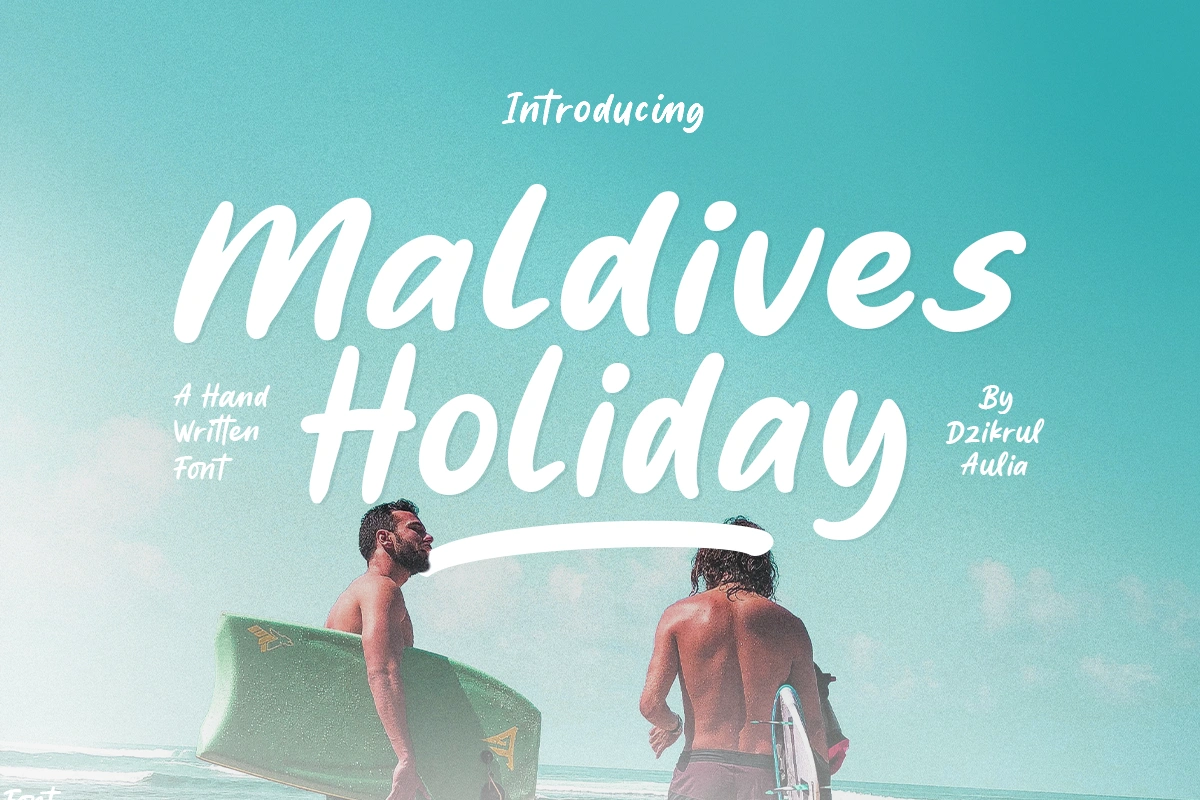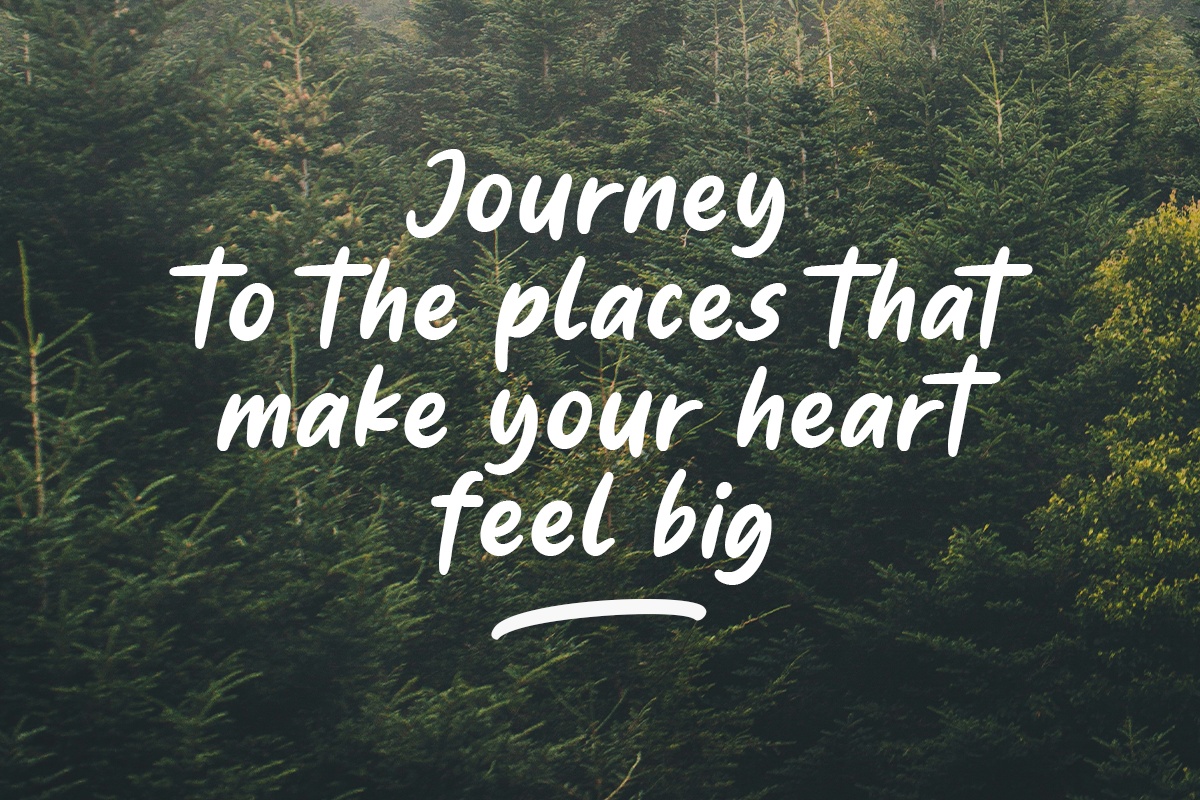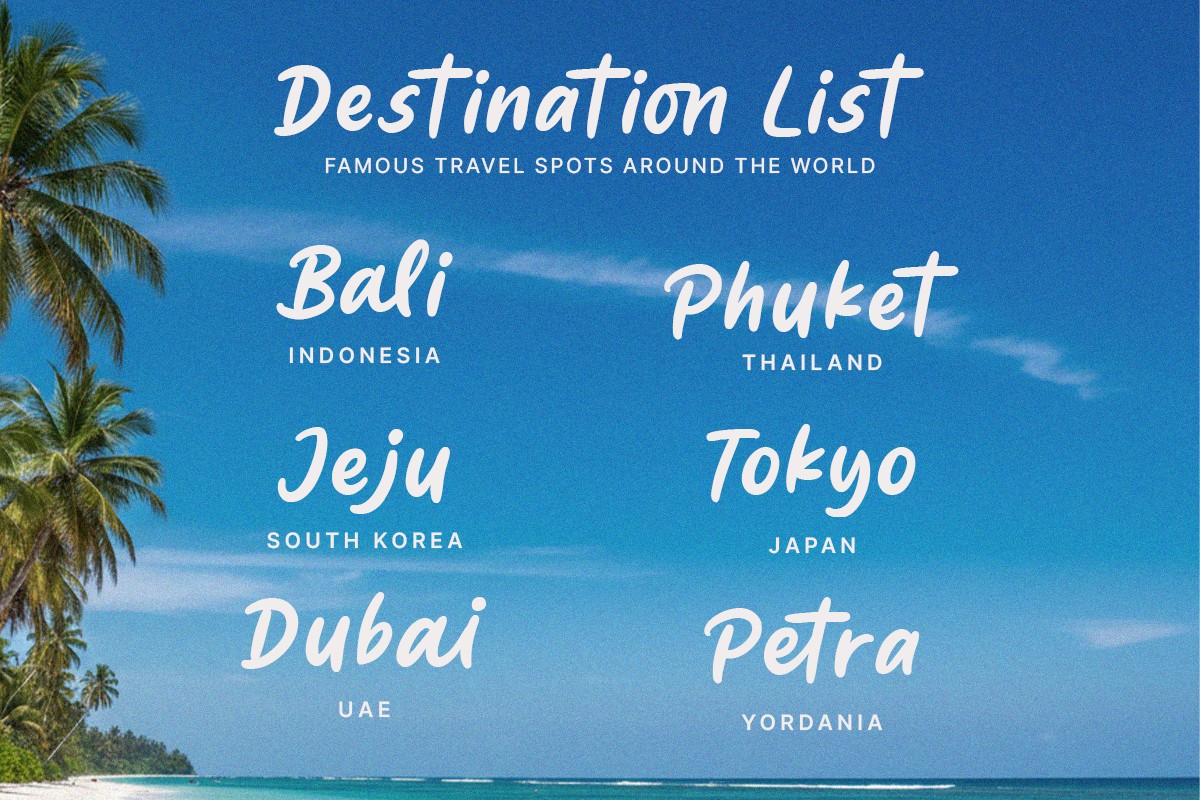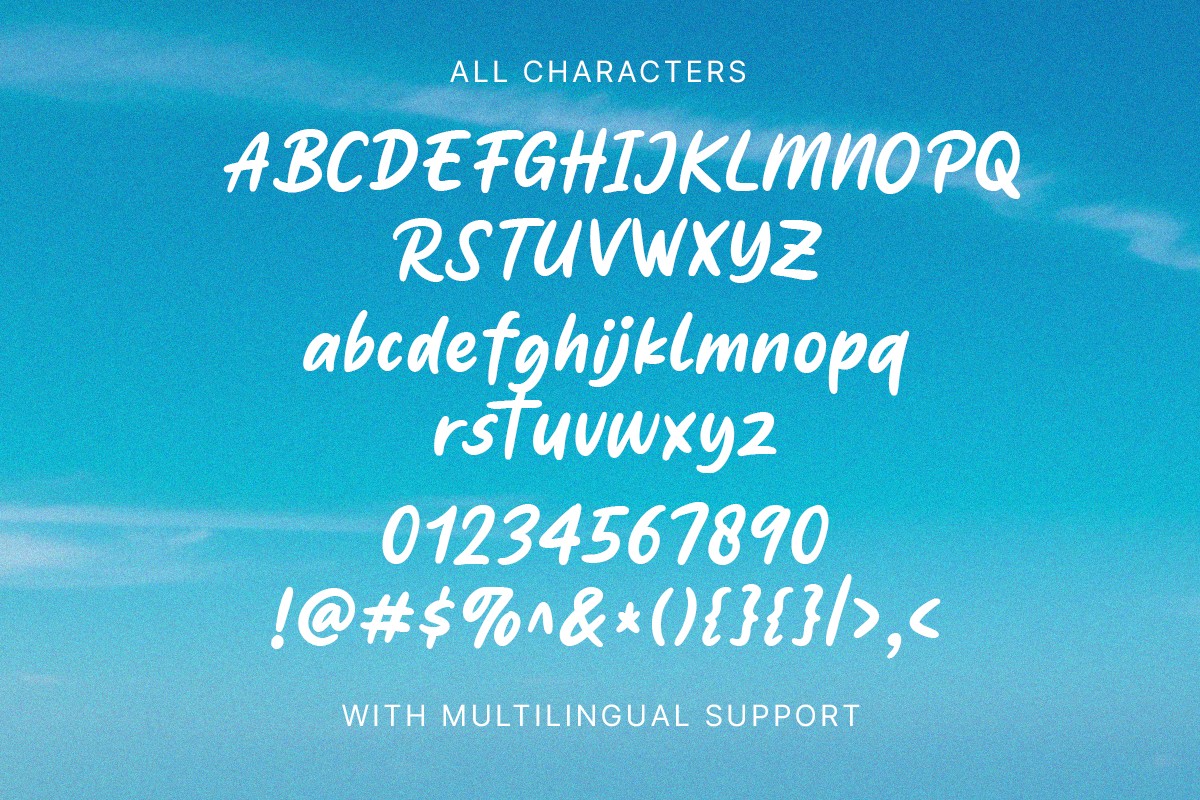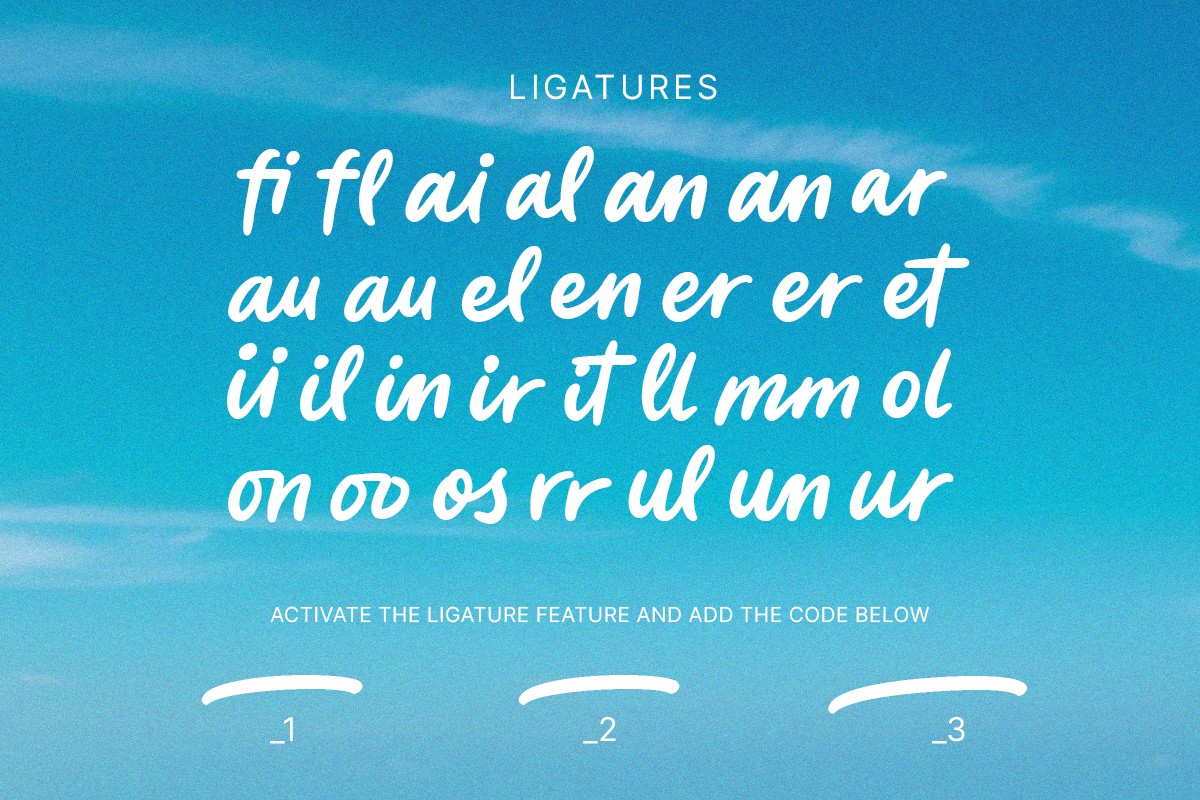
Maldives Holiday - Summer Handwritten Typeface
Maldives Holiday - Summer Handwritten Typeface is a bold display font that captures the carefree spirit of sunny days and coastal escapes. Designed with clean, handcrafted strokes and a relaxed rhythm, this typeface delivers a fresh, modern handwritten feel without leaning into script territory. The result is a confident yet friendly character that feels natural, warm, and effortlessly eye-catching.
Its strong letterforms ensure high readability in headlines and packaging, while the casual personality adds an inviting, lifestyle-driven tone. Maldives Holiday is perfect for travel branding, food and beverage packaging, summer campaigns, social media graphics, and vibrant promotional materials. Whether you're building a tropical identity or creating uplifting seasonal content, this typeface brings a breezy holiday mood to every design.
• Uppercase & Lowercase Letters
• Bold Handwritten Display Style
• Numerals
• Punctuation Marks
• Symbol Set